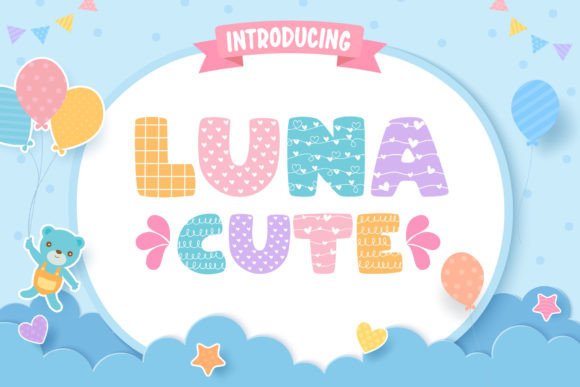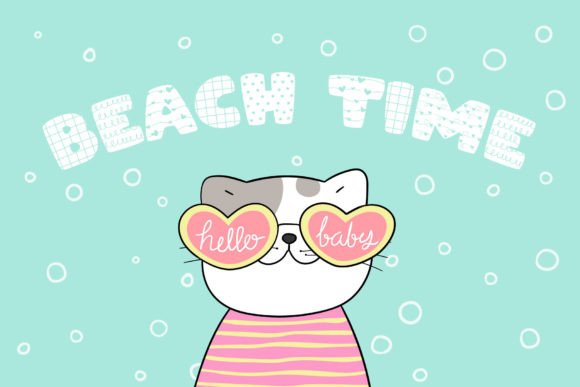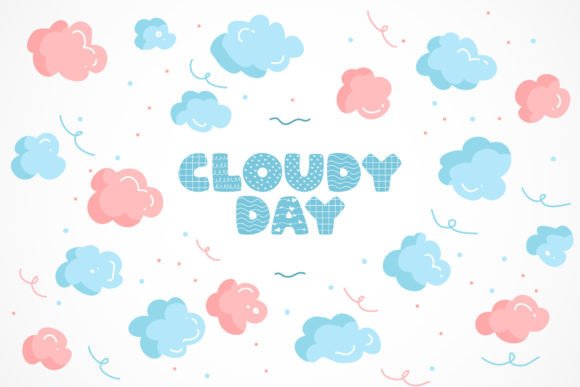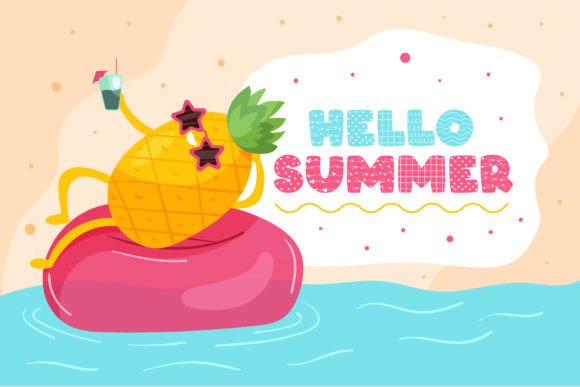
Luna Cute Font: A Playful Display Font for Children’s Designs
About the Luna Cute Font
Step up your design game with Luna Cute Font, a font that exudes confidence and style. Luna Cute is a display font that is cute, bright, and fun. It is perfect for children-themed designs, especially when combined with bright and pastel colors. Add this beautiful display font to each of your creative ideas, and notice how it makes them stand out!
Luna Cute’s playful character makes it ideal for children’s books, branding for playful products, and eye-catching headlines on posters or social media graphics. It works exceptionally well in short bursts of text, such as logos or short slogans. However, its decorative nature makes it unsuitable for body text or lengthy paragraphs, and its legibility suffers at smaller sizes. Avoid using it in user interfaces or applications requiring high readability.
To complement Luna Cute’s friendly energy, consider pairing it with a clean sans-serif like Open Sans for body copy or a slightly more geometric sans-serif such as Montserrat for a modern feel. A simple serif like Lora can add a touch of classic balance, while a playful script font could enhance its whimsical nature, depending on the project needs.
The font’s overall personality is best described as cheerful and approachable, conveying a sense of youthful exuberance and fun. This makes it a strong choice for brands targeting a young audience or projects emphasizing joy and lightheartedness.
Luna Cute Font Usage Examples
Luna Cute Font Example